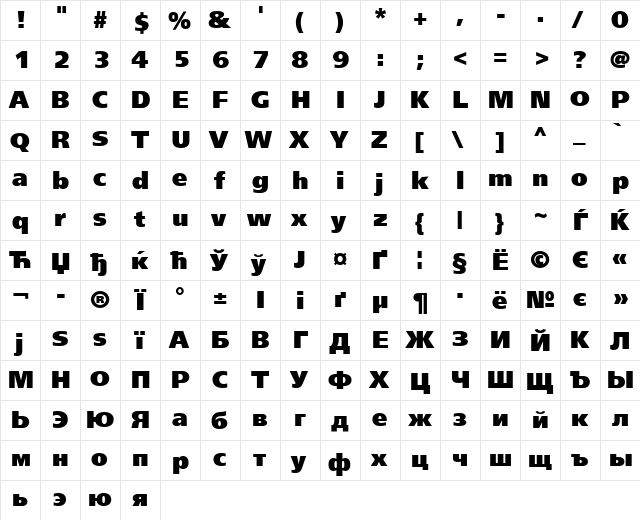
FreeSetBlackC Regular
Design Context for FreeSetBlackC Typeface
FreeSetBlackC offers clean, dependable letterforms without strong stylistic allegiance, making it a practical choice for designers who need flexibility.